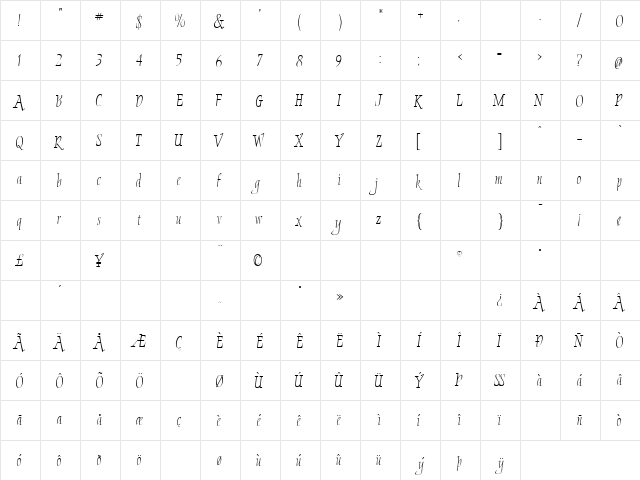
LHF David Design Regular
LHF David Design takes a measured approach to typography — its balanced proportions and neutral character make it a reliable workhorse for both digital and print work.